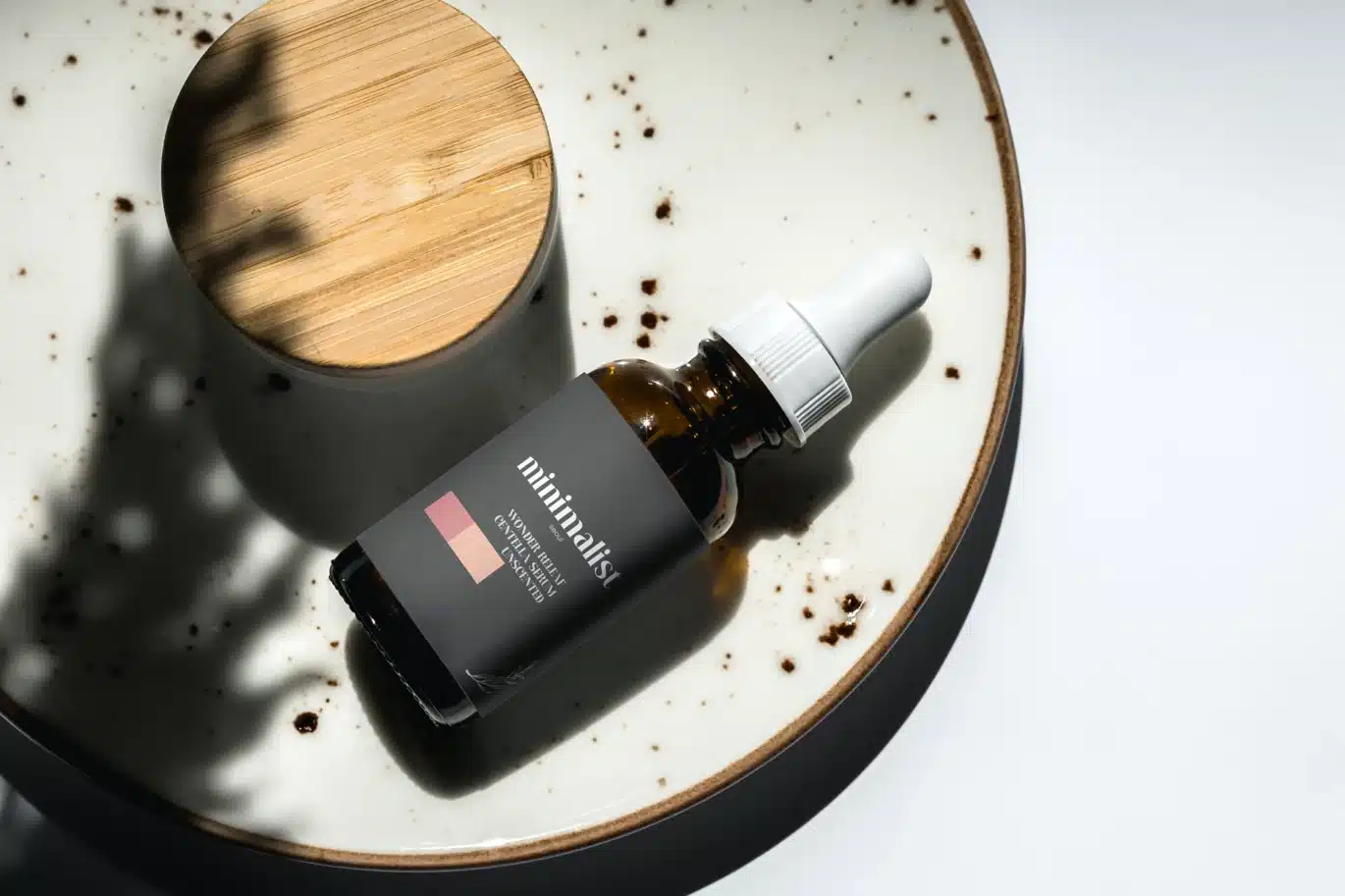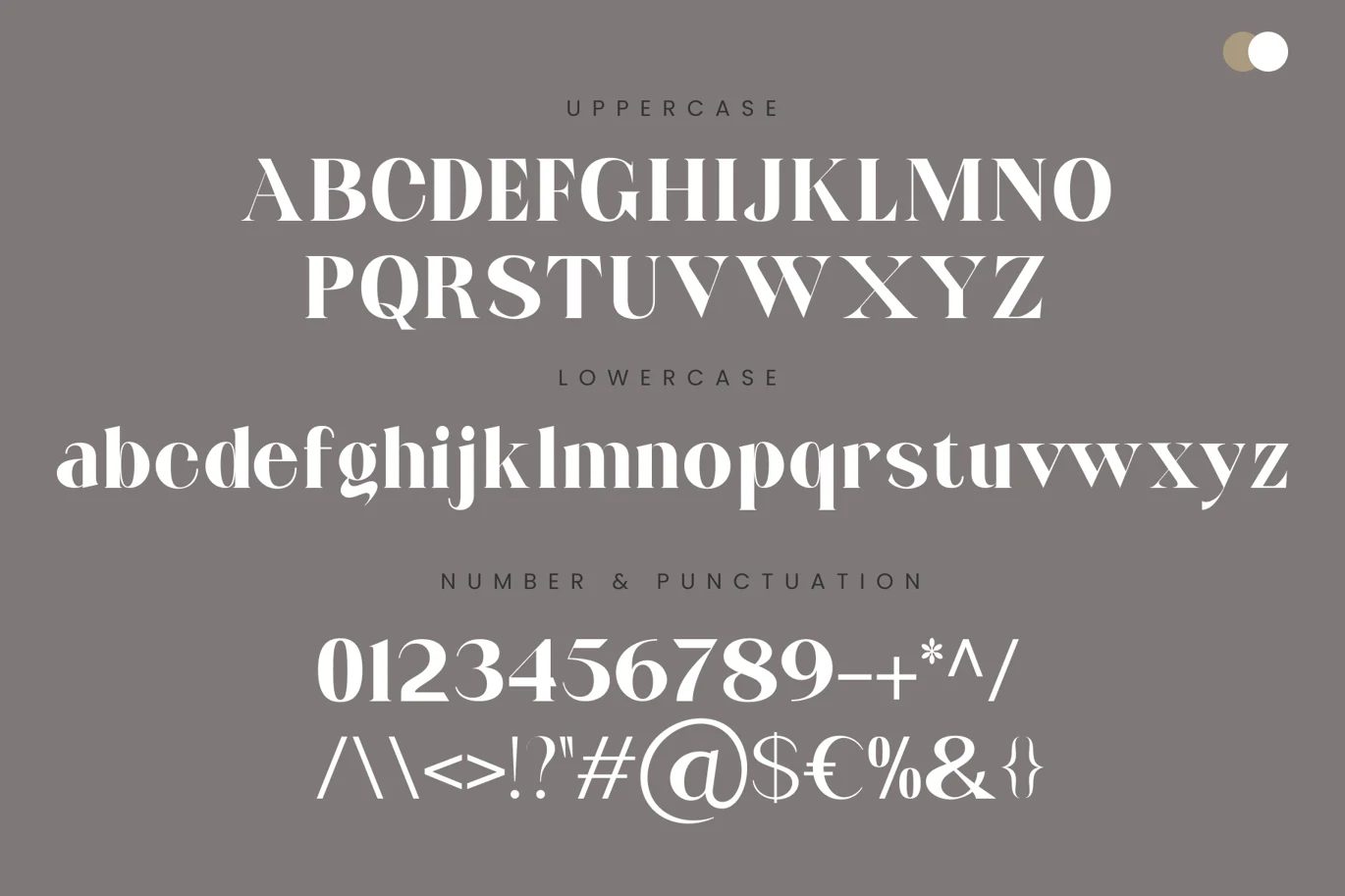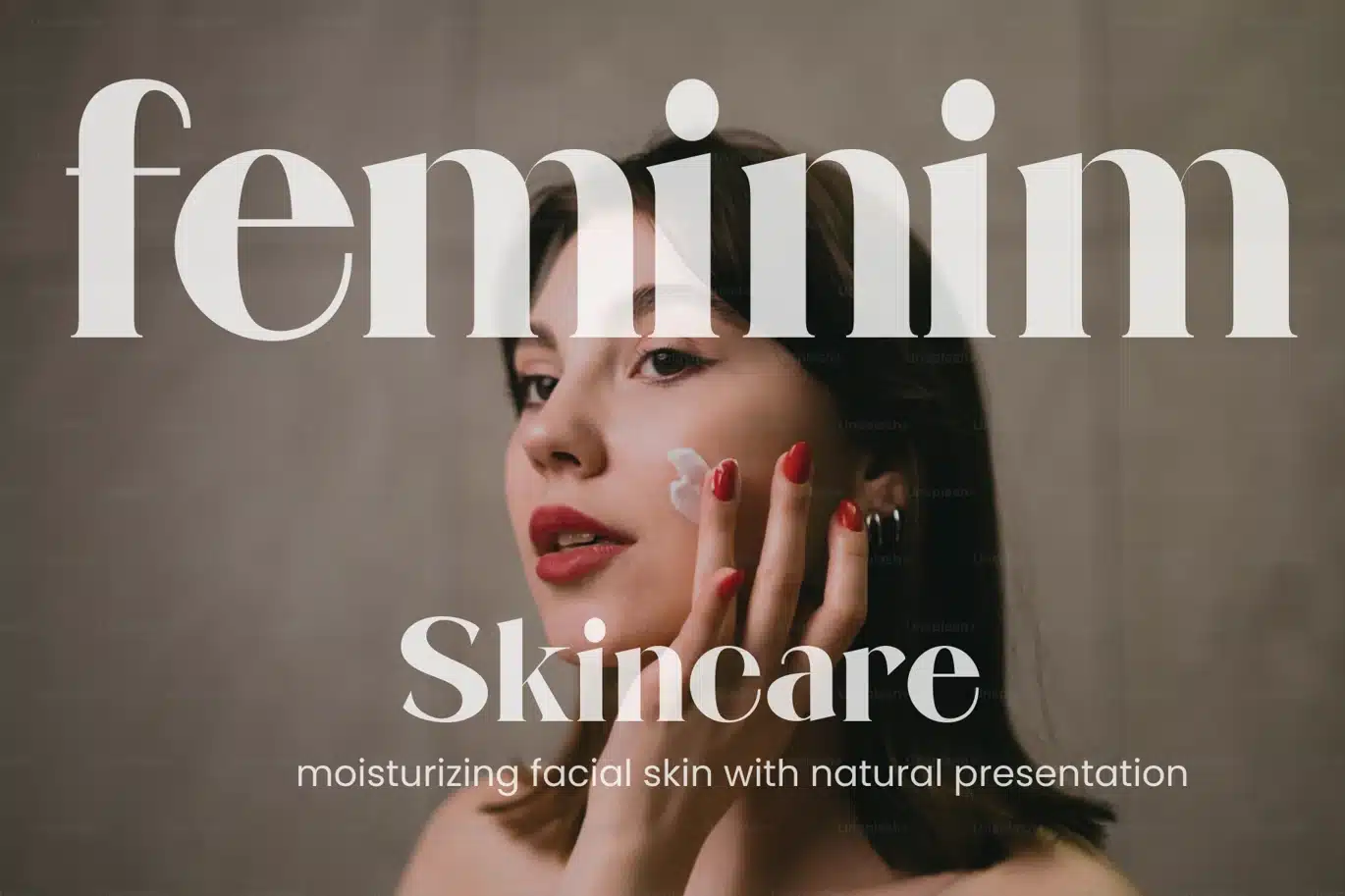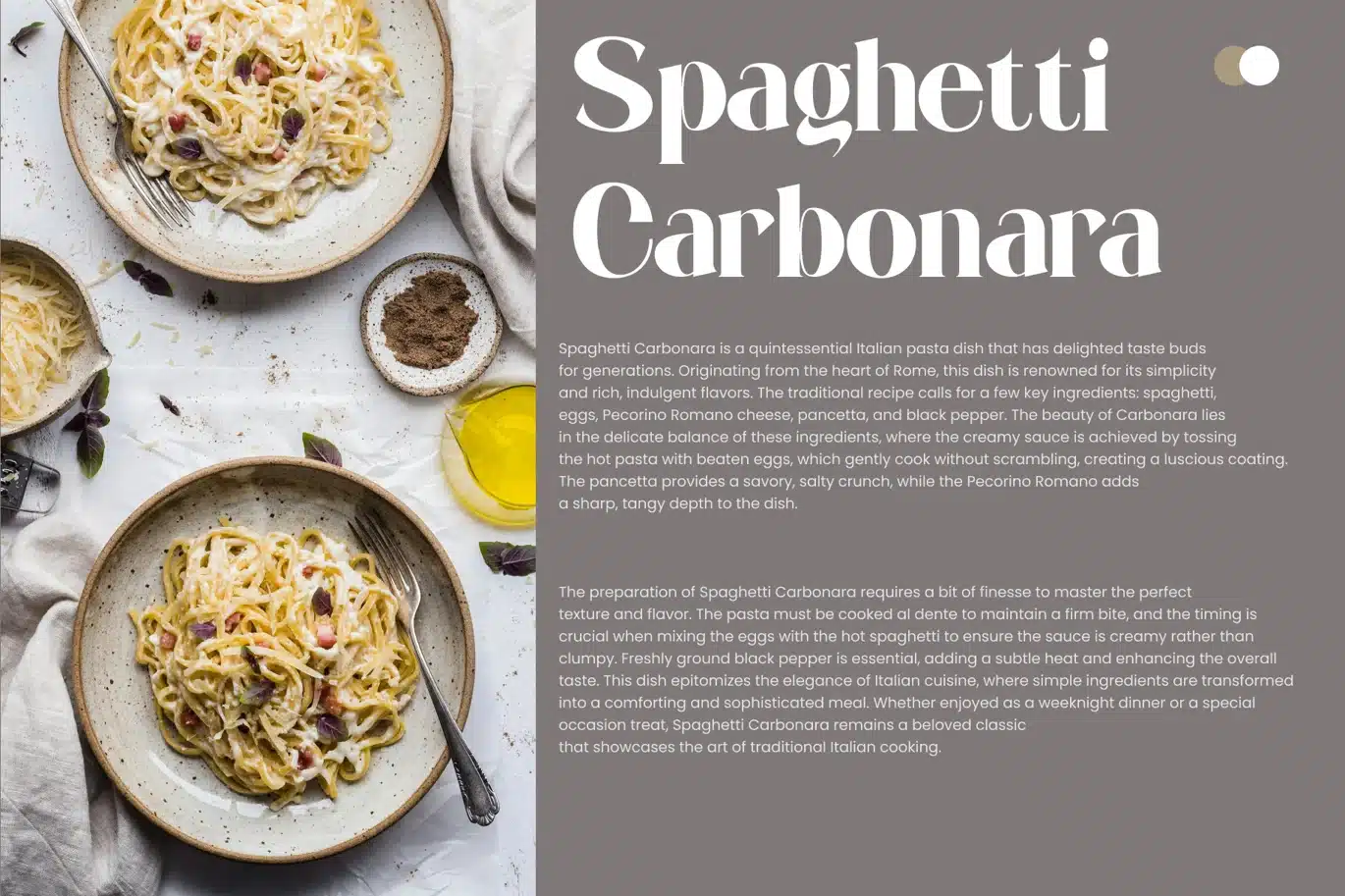
Miawme Font
Miawme is a sophisticated display typeface that blends elegance with a playful charm. Its refined serif shapes are balanced with smooth curves and bold proportions, creating a modern yet timeless look. The font evokes a sense of personality and warmth, making it perfect for branding, editorial designs, posters, and creative projects that aim to stand out with subtle character. Inspired by a gentle feline spirit, Miawme delivers both grace and uniqueness in every letter.
Uppercase and lowercase characters
Numerals and punctuation (OpenType Standard)
Symbols
Multilingual support